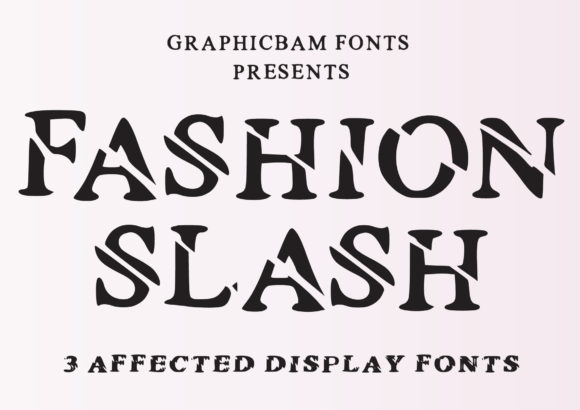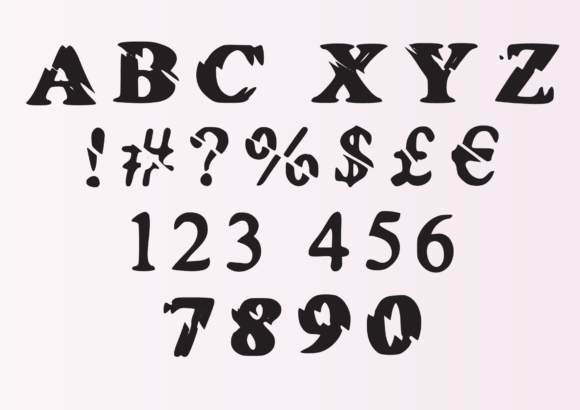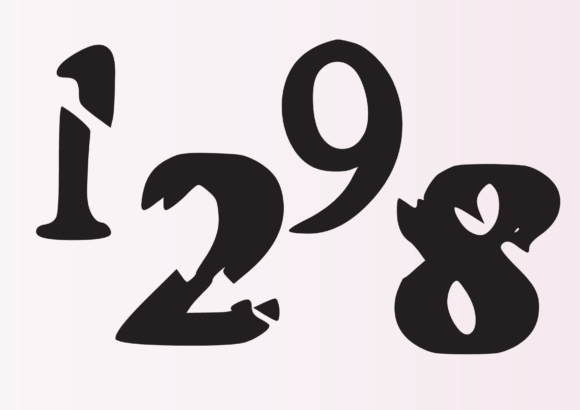
Fashion Slash Font
About the Fashion Slash Font
Make a bold statement with Fashion Slash Font, a powerful and memorable font. Fashion Slash is an incredibly cool and interestingly designed display font. This font is neatly crafted and highly detailed. Whatever the topic, this font will be a wonderful asset to your font library, as it has the potential to enhance any creation.
Fashion Slash’s bold, geometric forms make it ideal for headlines, logos, and short impactful statements in branding materials or posters. Its strong personality shines in fashion-related projects, product packaging, and even select advertising campaigns where a modern and edgy feel is desired. Avoid using it for body text or lengthy paragraphs; its highly detailed nature makes it less legible at smaller sizes.
This font pairs well with clean sans-serif fonts like Futura or Montserrat for a balanced contrast, or with a more playful script font like Pacifico to create a dynamic juxtaposition. For a sophisticated pairing, consider a classic serif typeface like Garamond, allowing Fashion Slash’s bold strokes to take center stage.
Its overall personality is undeniably modern and rebellious, conveying a sense of high fashion and confident style.
Fashion Slash Font Usage Examples
Fashion Slash Font Example